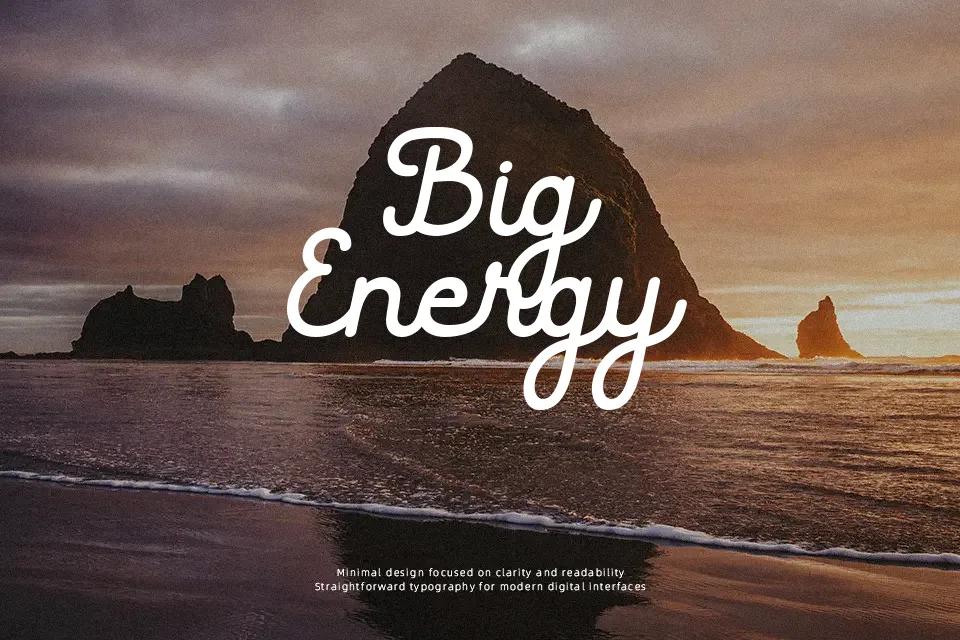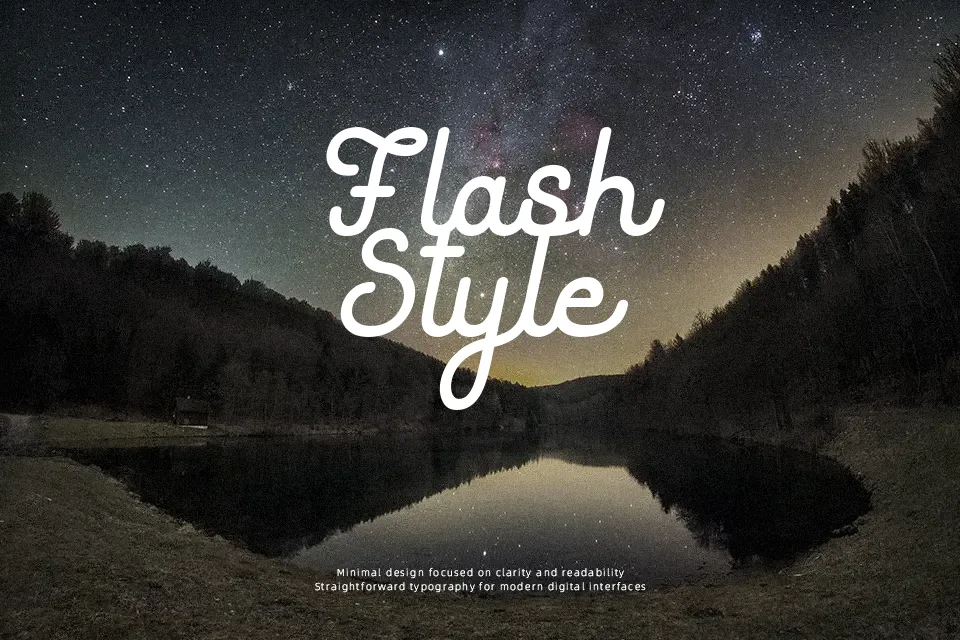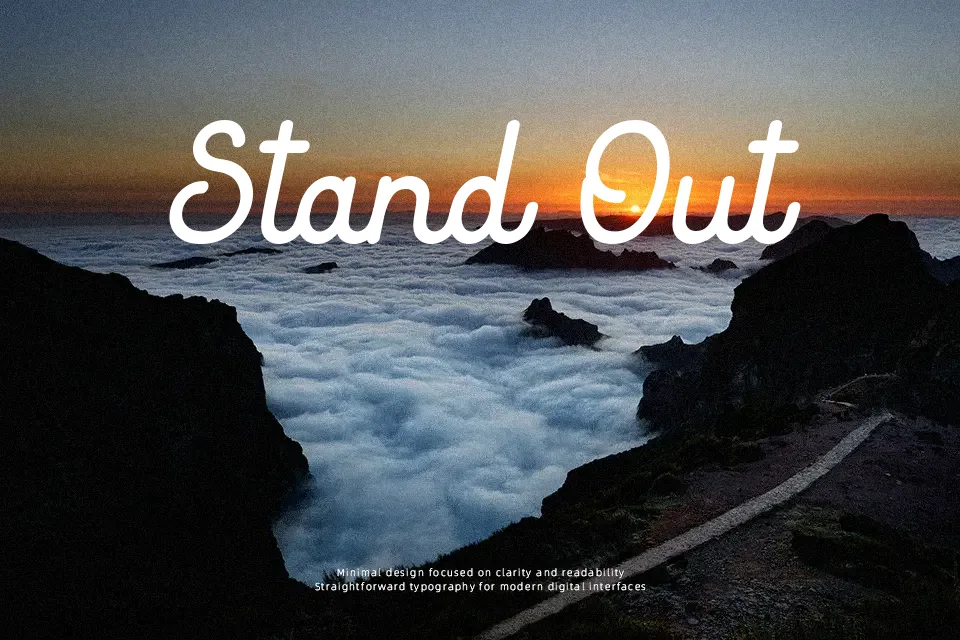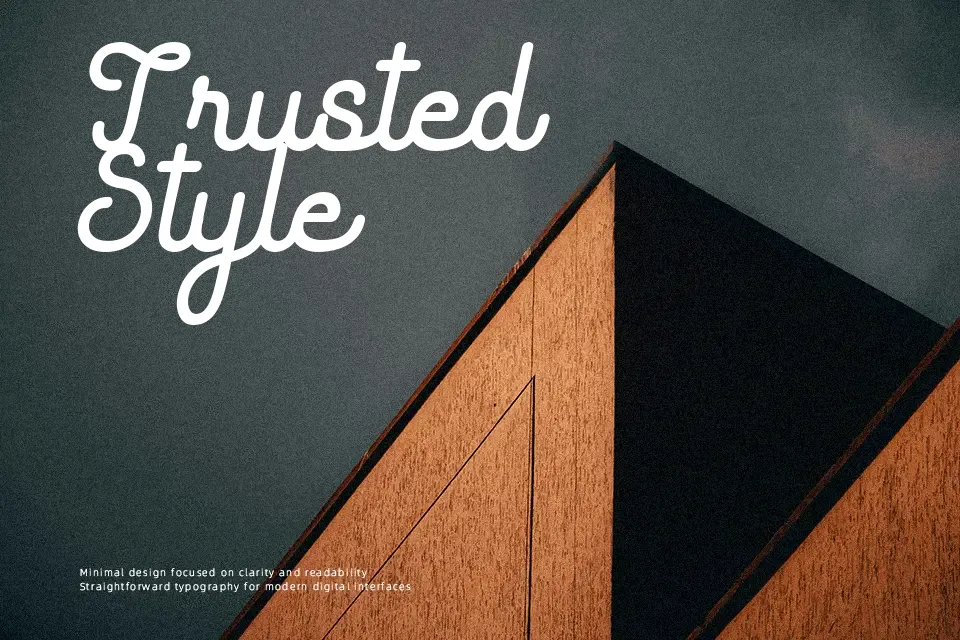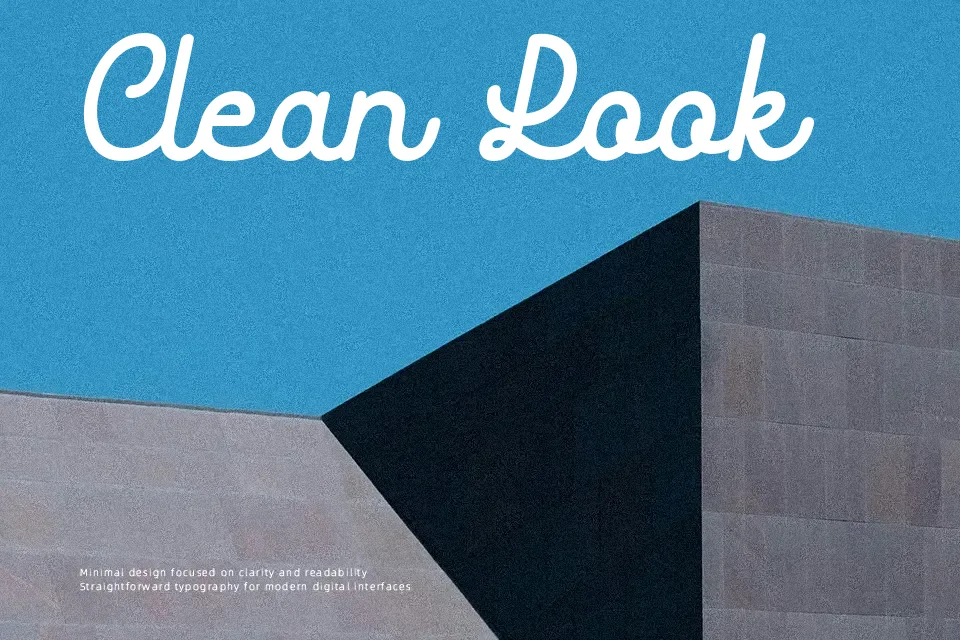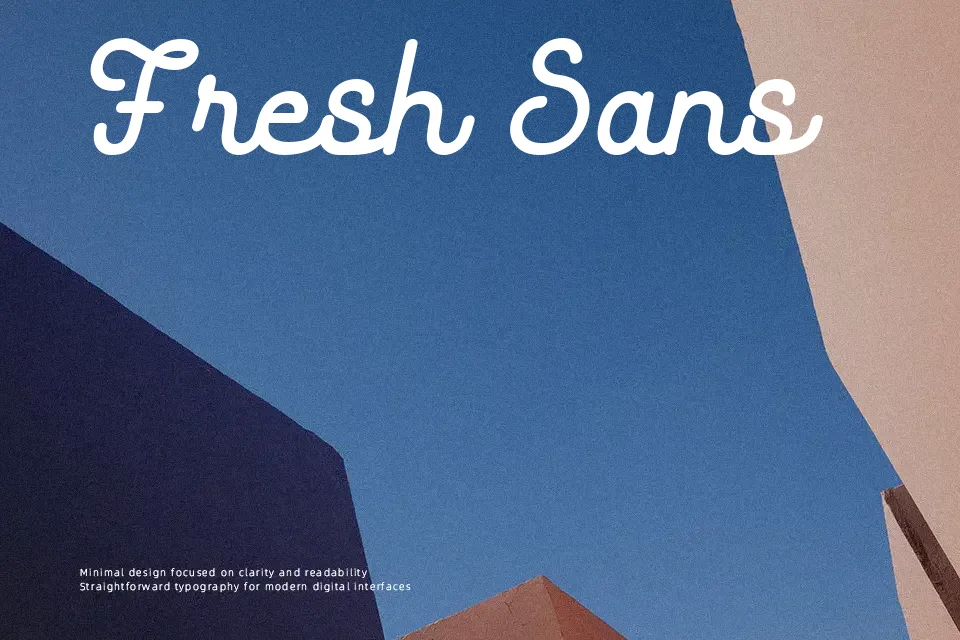
Antique Heritage Font
Antique Heritage draws attention with its even monoline strokes, rounded terminals, and connected script forms that echo hand-painted signage from vintage storefronts. The letters flow smoothly with generous curves and subtle swashes, giving headlines a nostalgic, crafted look without becoming overly ornate. It feels decorative and retro rather than formal, which works well for logos, business cards, printed quotes, packaging, and social media or website branding where character matters more than strict neutrality. However, the continuous script shapes and stylistic alternates make it less suitable for long paragraphs or functional UI text, where legibility at small sizes can suffer. Use it when you need a friendly, vintage-flavored display script, but switch to a simpler serif or sans serif for dense copy.
vintage cafe or restaurant logos and signage
packaging labels for handcrafted or nostalgic products
invitation and event headers with a retro script feel
social media branding graphics with a warm, aged tone
long paragraph text or body copy
formal corporate reports or strict professional documents
small-size UI labels or system interfaces
minimalist tech or futuristic brand identities
Perfect for branding, headline, and logo, with a classic and decorative style.